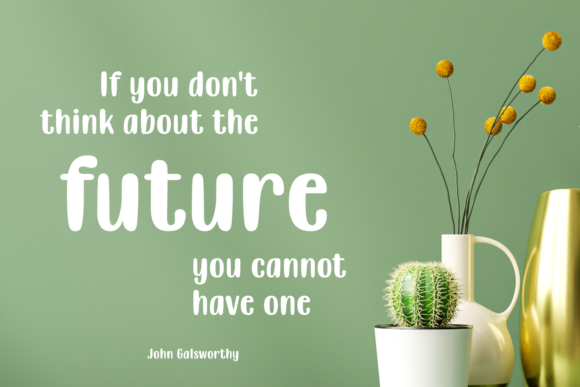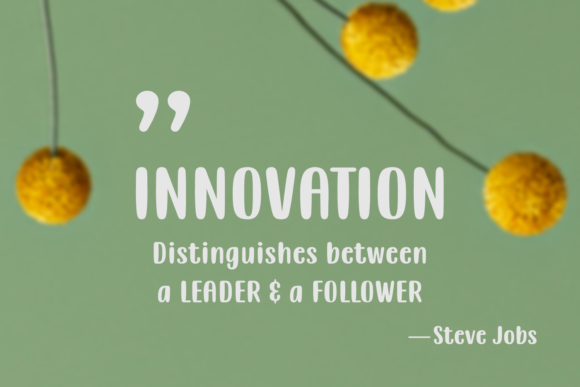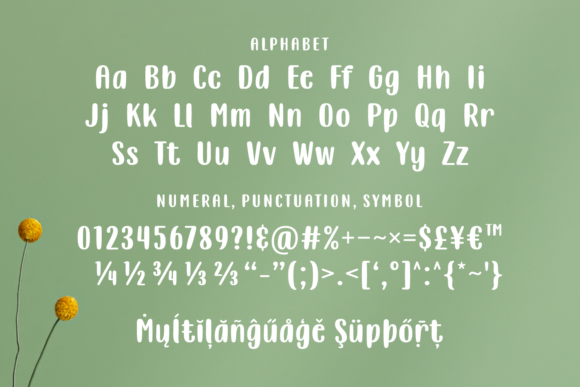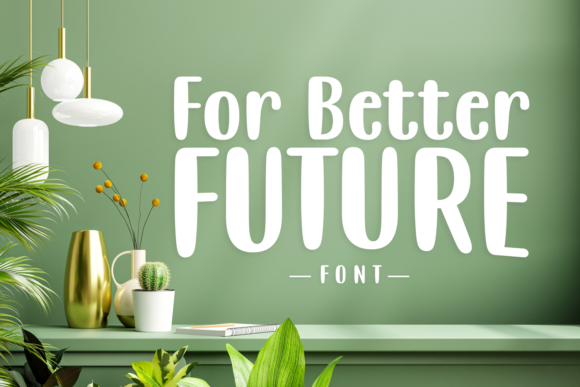
Introducing For Better Future Font: Elevate Your Designs with Modern Simplicity
In the world of design, typography plays a crucial role in conveying messages, expressing creativity, and capturing the essence of a brand. For designers and crafters seeking a modern and simple display font to elevate their projects, look no further than For Better Future Font. This versatile font is specifically designed to make a statement, whether you’re creating business cards, quotes, signs, greeting cards, wall art, or logos.
A Modern and Simple Display Font
For Better Future Font boasts a clean and contemporary aesthetic that instantly adds a touch of sophistication to any design. Its simplicity makes it an excellent choice for designers who want to convey a sense of elegance and professionalism. The font’s modern design ensures that your creations will stand out in a crowded design landscape, making it perfect for those who want to make a lasting impression.
One of the key benefits of For Better Future Font is its versatility. This font can be used across a wide range of design projects, including:
- Business Cards: Create memorable and stylish business cards that reflect your brand’s personality.
- Quotes: Add a touch of inspiration to your quote designs with a font that’s both modern and easy to read.
- Signs: Make a statement with eye-catching signs that showcase your message in a clear and concise manner.
- Greeting Cards: Add a personal touch to your greeting cards with a font that’s both elegant and simple.
- Wall Art: Create stunning wall art that adds a touch of sophistication to any room.
- Logos: Use For Better Future Font to create a logo that perfectly represents your brand’s values and mission.
Why Choose For Better Future Font?
With so many fonts available, why choose For Better Future Font? Here are just a few reasons why designers and crafters love this modern and simple display font:
- Unique and Memorable: For Better Future Font is designed to make a statement and leave a lasting impression.
- Easy to Read: The font’s clean design ensures that your message is conveyed clearly and concisely.
- Versatile: Use For Better Future Font across a wide range of design projects, from business cards to wall art.
- Modern and Sophisticated: Add a touch of elegance and sophistication to your designs with a font that’s both modern and simple.
Tips for Using For Better Future Font
To get the most out of For Better Future Font, here are a few tips to keep in mind:
- Experiment with Sizes: For Better Future Font looks great in a variety of sizes, from large and bold to small and delicate.
- Play with Colors: Try pairing For Better Future Font with different colors to add depth and contrast to your designs.
- Mix and Match: Combine For Better Future Font with other fonts to create a unique and eye-catching design.
For Better Future Font is a modern and simple display font that’s perfect for designers and crafters looking to elevate their projects. With its clean and contemporary aesthetic, versatility, and ease of use, this font is sure to become a staple in your design toolkit. Whether you’re creating business cards, quotes, signs, greeting cards, wall art, or logos, For Better Future Font is the perfect choice for anyone looking to make a statement and leave a lasting impression.